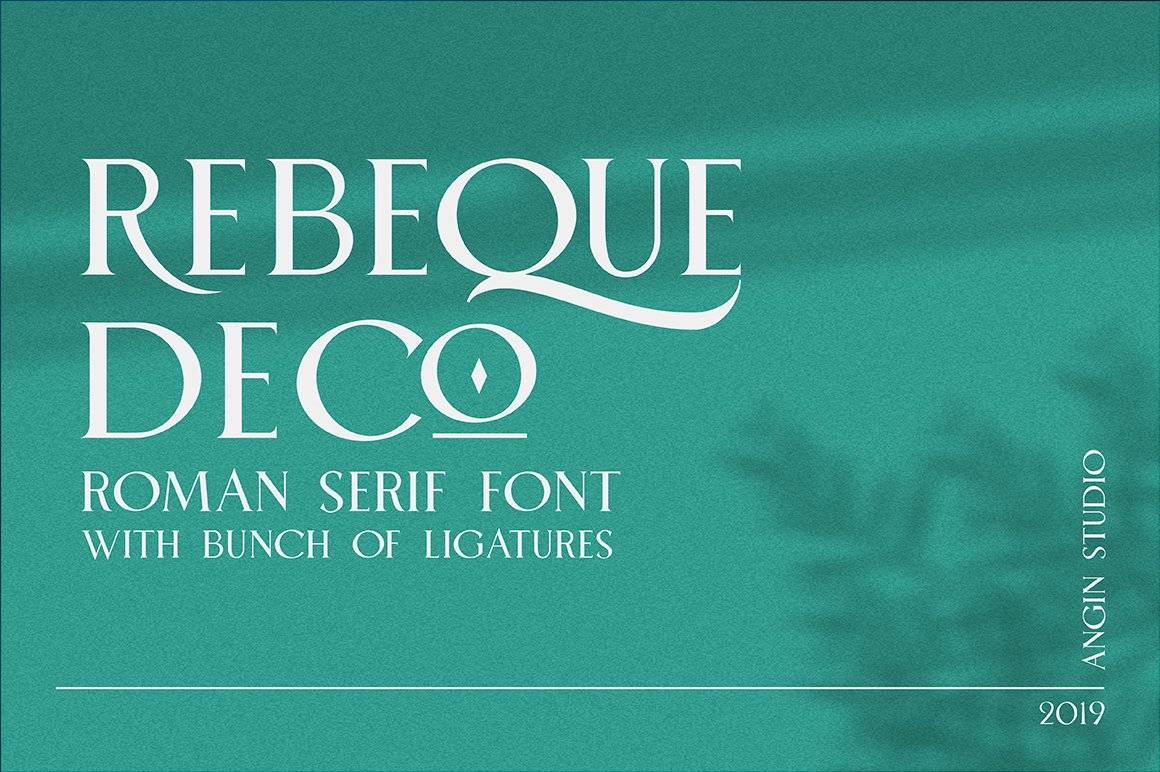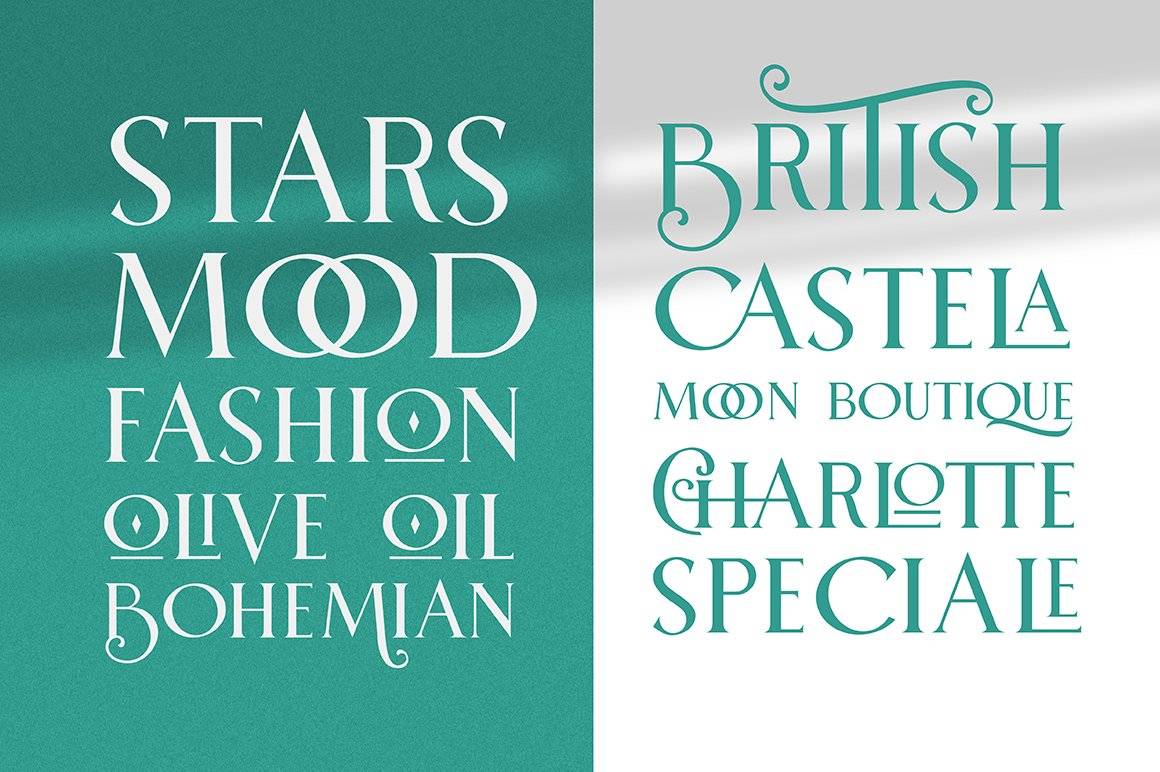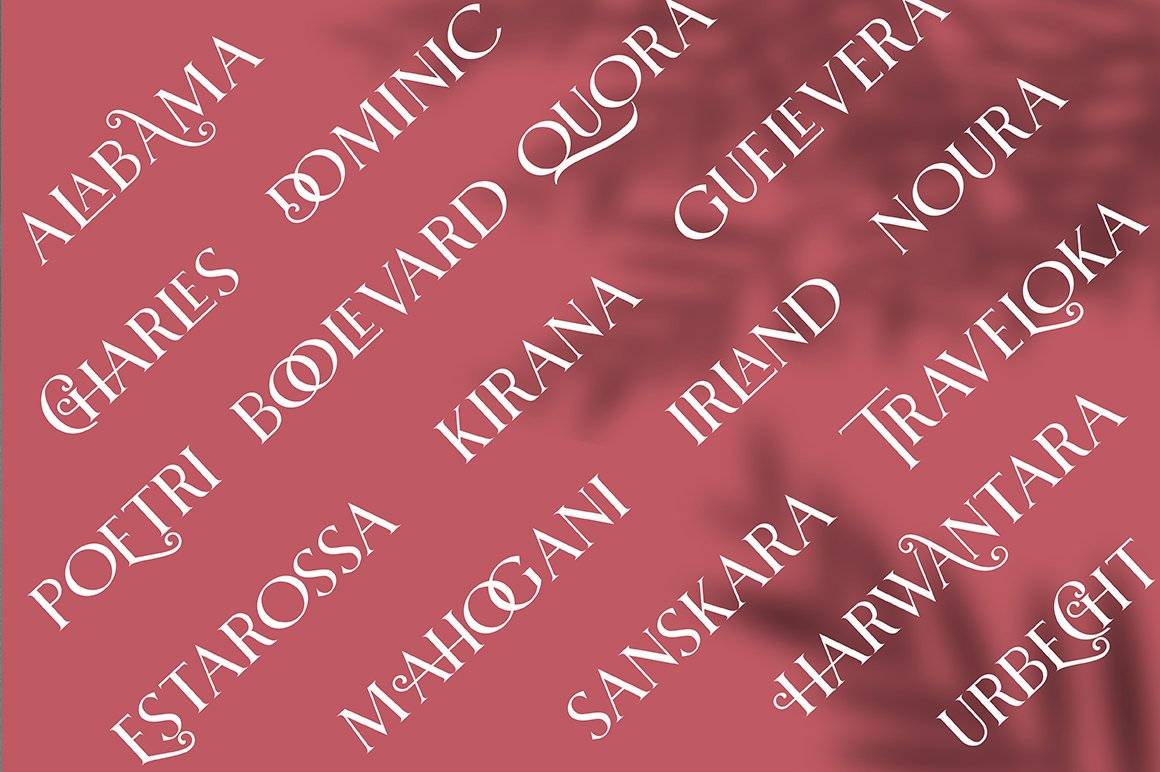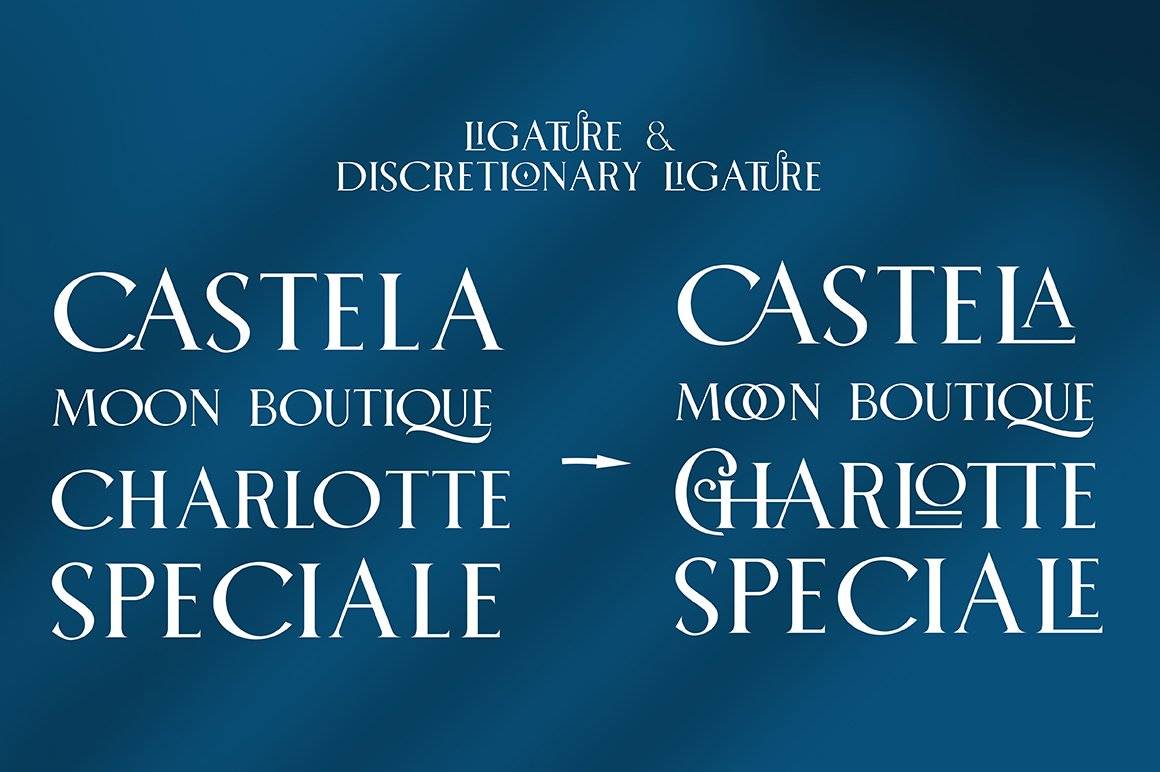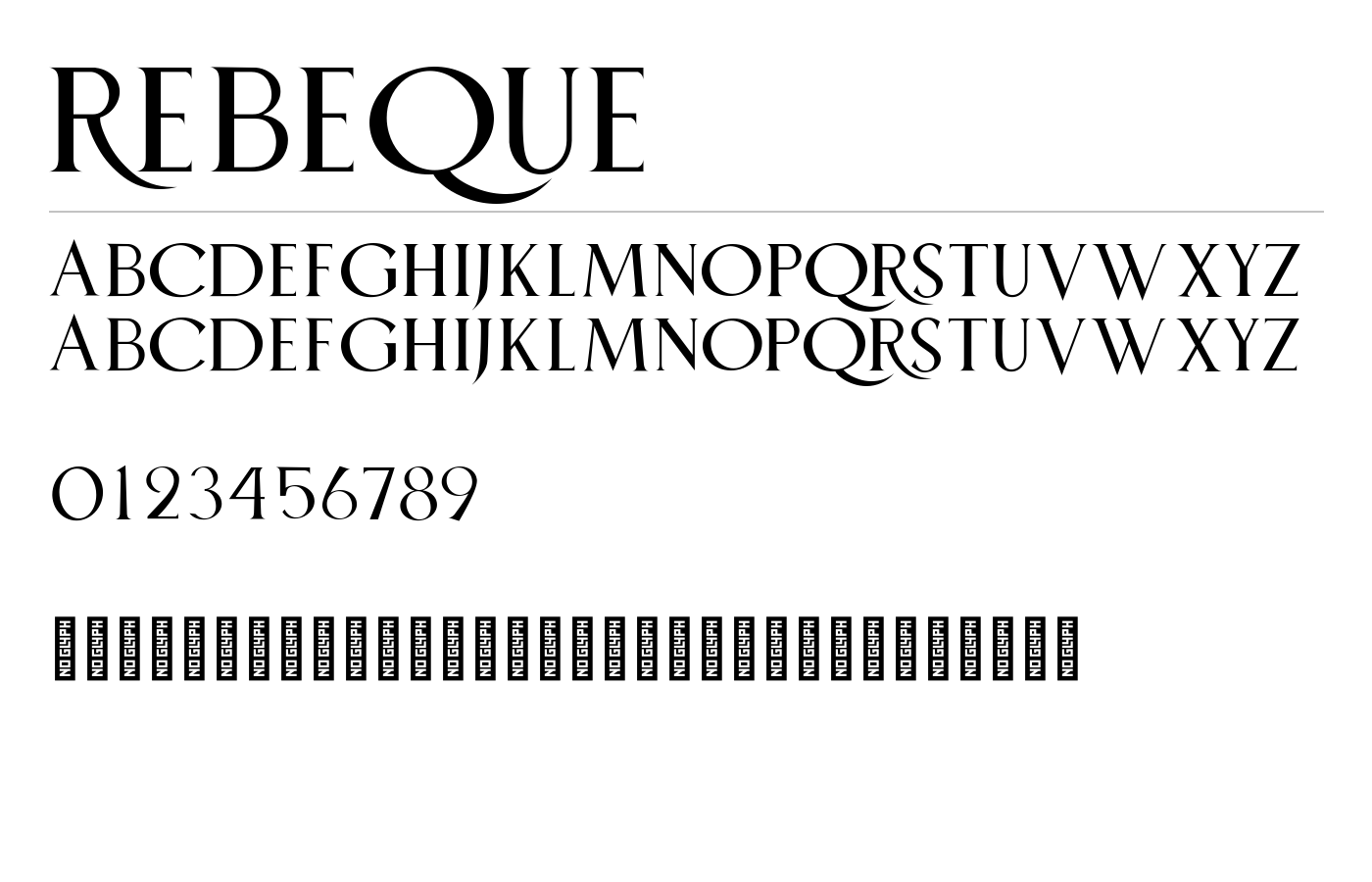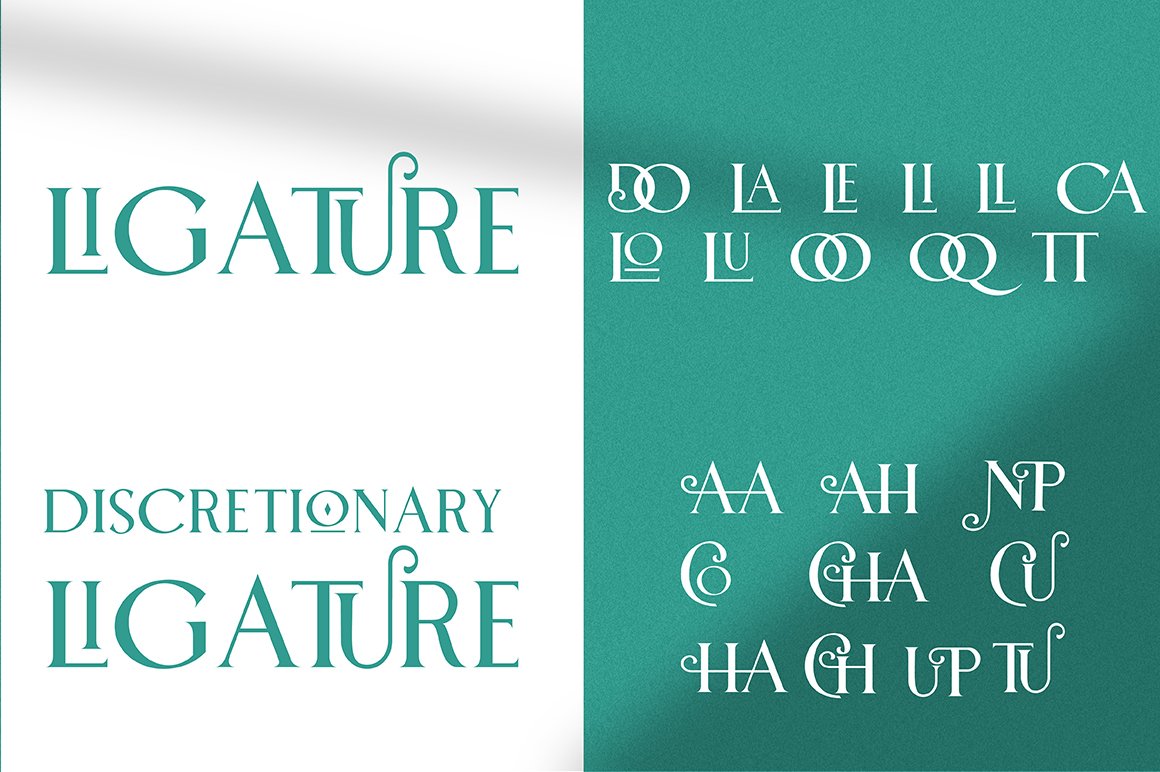
Rebeque Deco is a refined serif font with an elegant, high-contrast design that features delicate, bracketed serifs and graceful curves, lending it a sophisticated Art Deco flair. Its slender letterforms and distinct stylistic details create a luxurious and timeless feel, making it ideal for upscale branding, fashion editorials, and striking headlines that demand attention and a touch of vintage glamour. This font works best where elegance and style are key, such as in logos, packaging, and premium editorial layouts.
Rebeque Deco